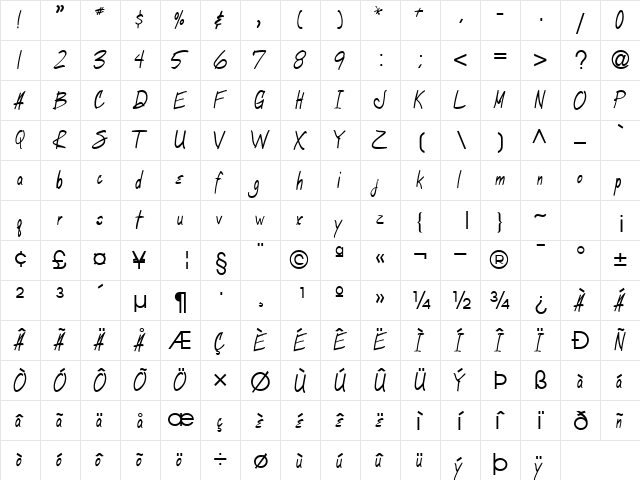
Letter Regular
Design Context for Letter Typeface
Letter takes a measured approach to typography — its balanced proportions and neutral character make it a reliable workhorse for both digital and print work.
Pro Tip: Use Letter in both headline and body roles to test its range before committing to a single application.